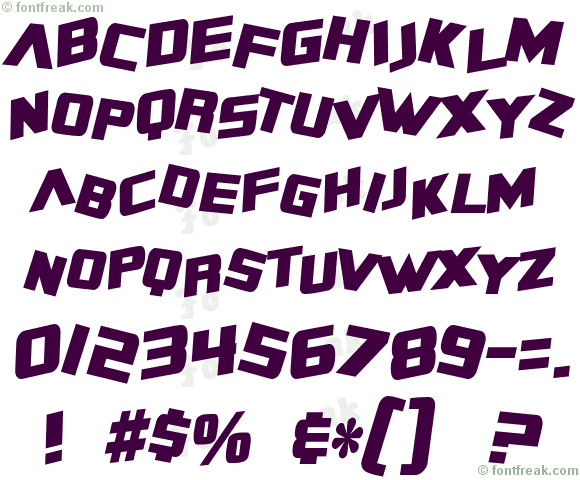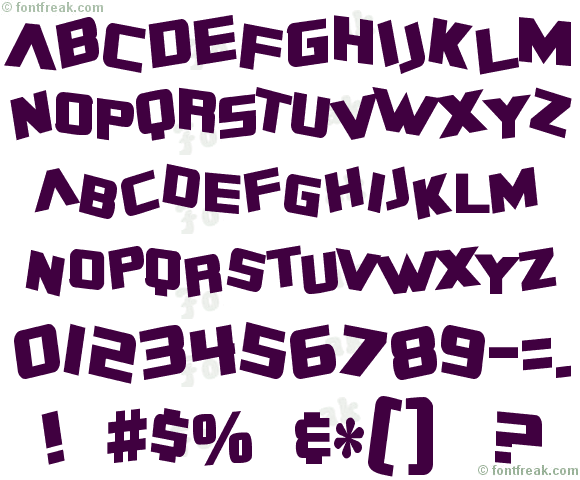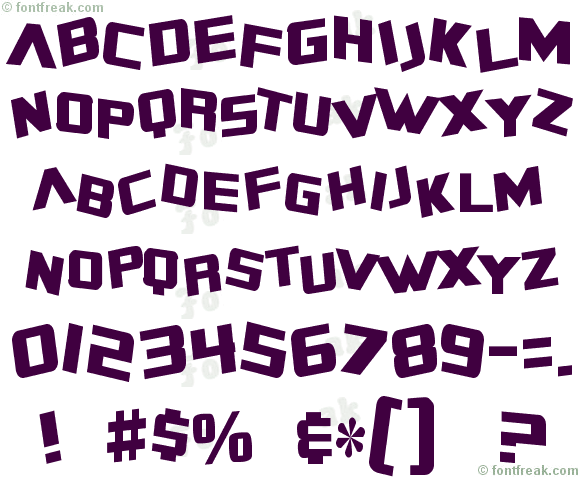
Introducing the Zero Gravity font by Shyfonts Type Foundry, a striking condensed italic typeface that offers a unique blend of modernity and elegance. As a freeware font, it provides an excellent opportunity for designers to elevate their projects without any licensing concerns. The Zero Gravity font features a bold stroke weight that commands attention while maintaining a sleek appearance. Its smooth curves and sharp angles create a dynamic contrast, enhancing readability even at smaller sizes. The spacing between characters is well-balanced, allowing for seamless integration into various design contexts.
This versatile font is ideal for a range of applications, making it a valuable addition to any designer's toolkit. Use Zero Gravity for eye-catching movie posters that require a contemporary feel, or employ it in restaurant menus to convey a modern yet approachable vibe. It also works wonderfully for branding projects, where a bold statement is necessary to capture the essence of a small business. Content creators will appreciate its distinctive style when crafting promotional materials, social media graphics, or event flyers, ensuring that their messages stand out in a crowded digital landscape.
Targeted towards graphic designers, small business owners, and content creators, the Zero Gravity font offers a fresh and engaging visual style that resonates with modern audiences. Its unique characteristics make it a perfect choice for those who seek to create memorable designs that leave a lasting impression.
What sets the Zero Gravity font apart is its ability to merge boldness with elegance, making it suitable for both casual and formal contexts. Its free availability allows for limitless creative exploration, inviting users to experiment with various design concepts. Don’t miss the chance to enhance your projects with this distinctive typeface—enjoy the Zero Gravity font free download and elevate your designs today.